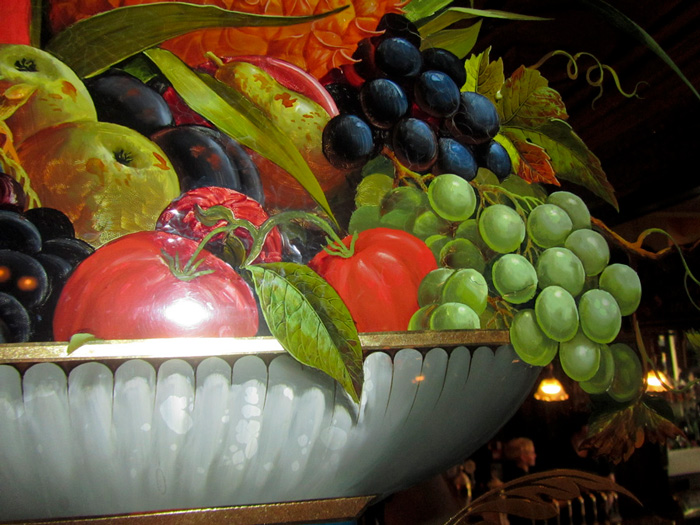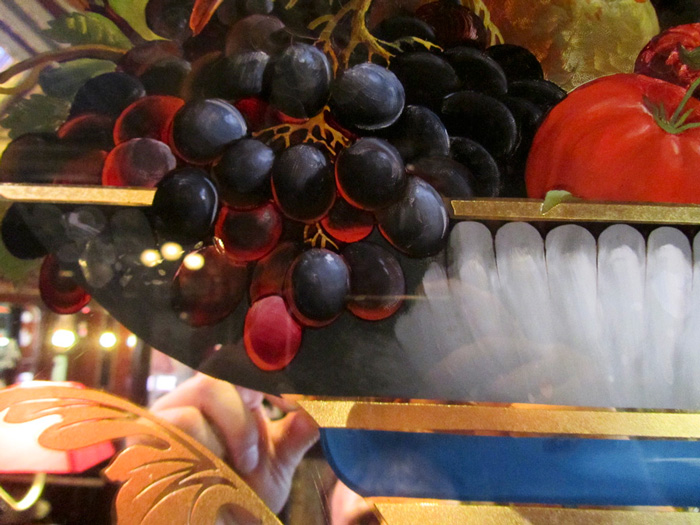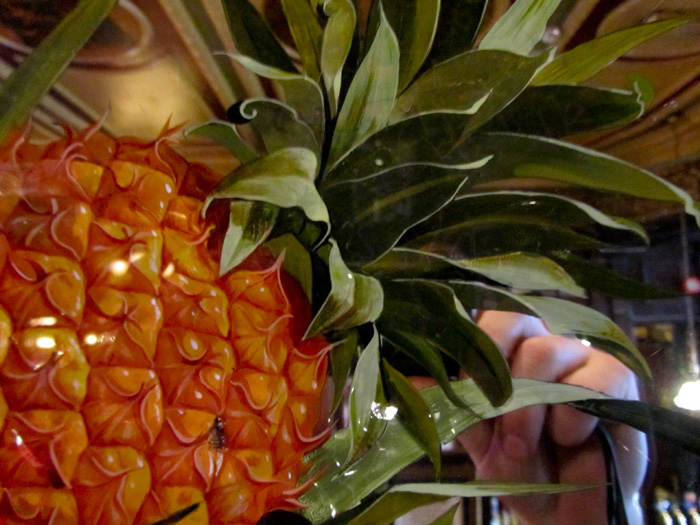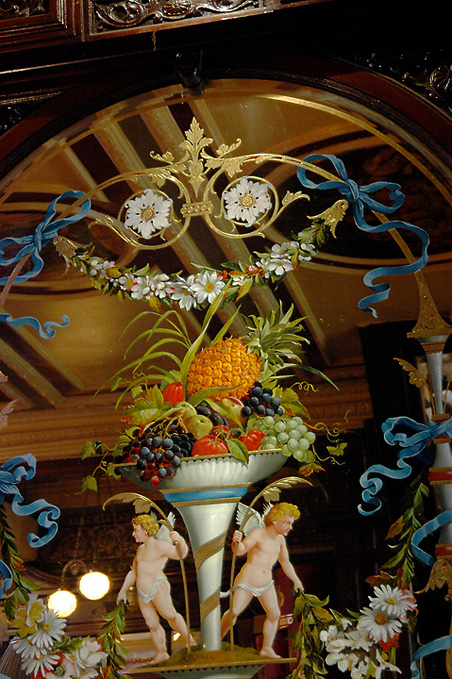
The Tottenham Pub, London
I was up in London with my daughter a few weeks back visiting University's for her to go to next year. Later that day we took a tube to central London, she went off clothes shopping and I took a look round some old pubs .I had been to this pub before with Doug Bernhardt but had not had the chance to get any close up shots of the beautiful mirror inside this bar. Well I finally got some of the Mirror in the pub called The Tottenham on Oxford Street. The mirror was made by a company called Jones and Firmin glass decorators. 1900. Other glass works will be added over the weekend to my site.
This is really stunning, Dave.
Is this reverse-painted on the glass?
I've done some reverse pictorial work and it's pretty difficult so I'm curious if this is a painting adhered to the back of the glass or if it's painted on the glass. Either way, it's beautiful and as usual, I appreciate the stuff you share with us.
Yes this is all hand painted in reverse , I would say the gilding was done first and then the painting and finally the silvering, it's very nicely done.
Good night Moses! How many could even paint that well painting from the front?
This really inspires me to push myself when I see work like this. Thanks for showing
us this nice work Dave.
I think this is the part where I say, "Blimey".
It is extremely interesting to look at the areas where thin glazes have burned away and revealed the less-finished modeling behind: one of the tomatoes shows that.
This guy took his time and studied his "forwards" reference art carefully. He likely painted that, too. He never let his values or hues get out of balance, and there's not a throwaway stroke anywhere. Such volume!
This is so tasty it reminds me that I haven't been eating enough fruit...
Here's a photo of it overall. There's one up in "Masterpieces" section but it's worth adding a couple more as it's an amazing piece.
Dave & Doug these are fantastic, never mind the surounding mill work to say the least...Just simply awesome...
Hi Pat....I think it's the whole thing that makes it so amazing. The truth is also....over there this is just one of so many that are as beautiful in other ways although The Tottenham seems to be unique.
Davey Boy. I've seen old black and white photos of that same glass and just never knew where it was. We'll be going there for sure in a couple weeks huh?
I've always been amazed at how the entire surrounding work and complement each other, like the ceiling and mill work in the pics you two have posted, and now these last ones you have posted Dave. Tin ceiling and tile work Awesome...The last pic (and it may just be the angle of the pic) makes the Paddy and Polly panel look raised, pretty cool....Years ago Ruth and I were in and arround St. Pauls but never saw this, and even though I wasn't in the sign industry at the time, this would not have been one we would have forgotten had we seen it...Thanks for posting guys, this kind of thing makes me even want to work harder at getting the client to look at the whole and not just the sign, doing so creates an everlasting impression.